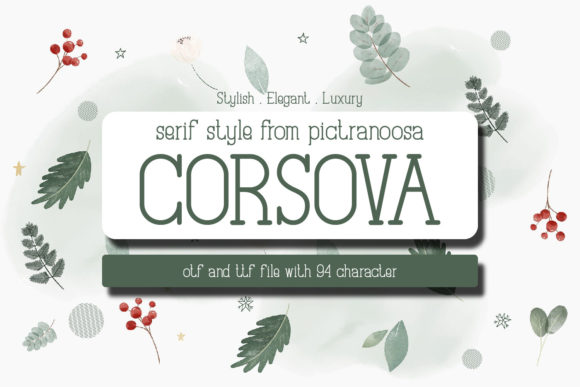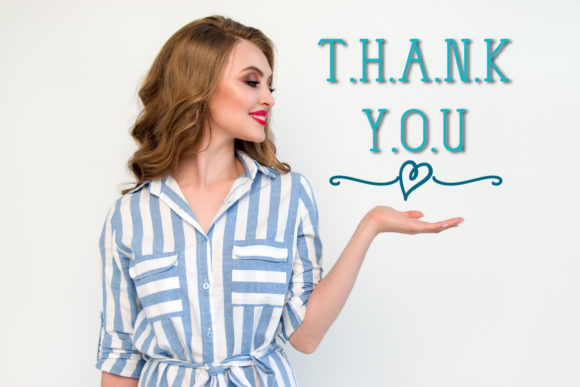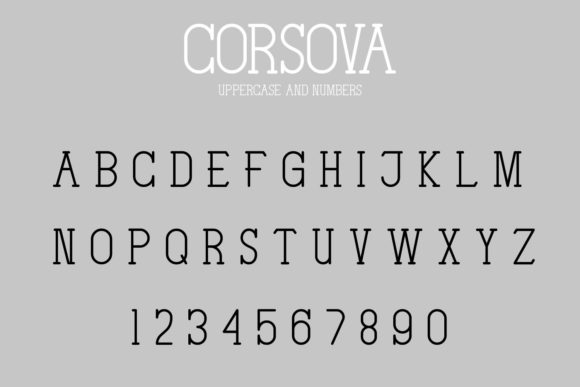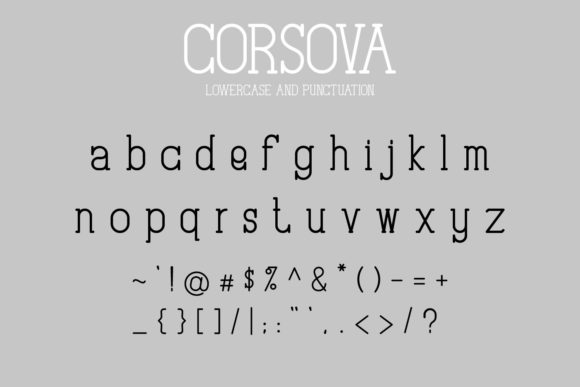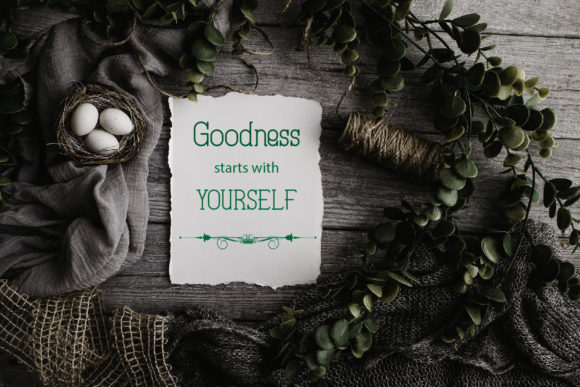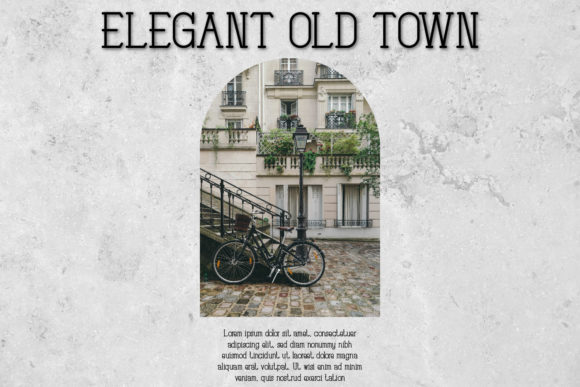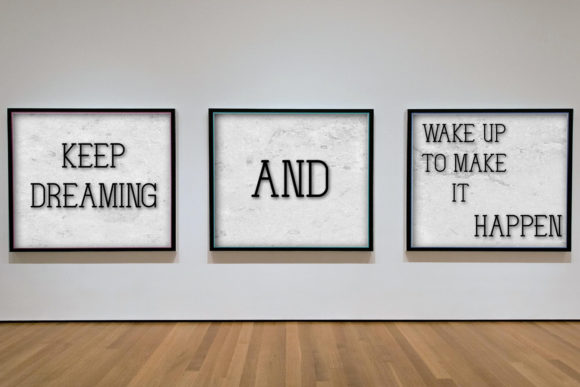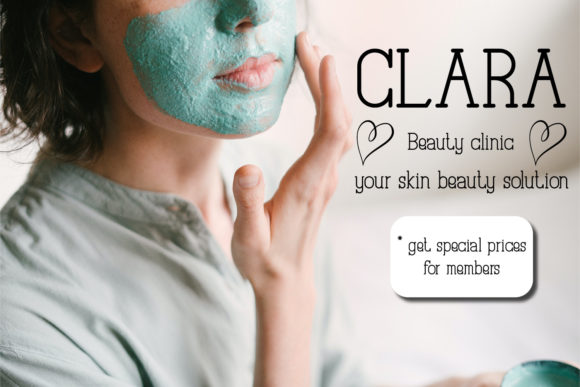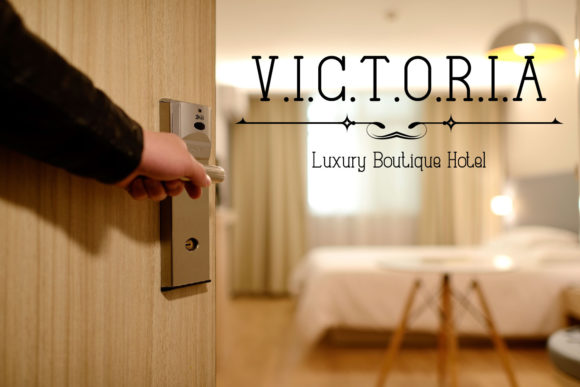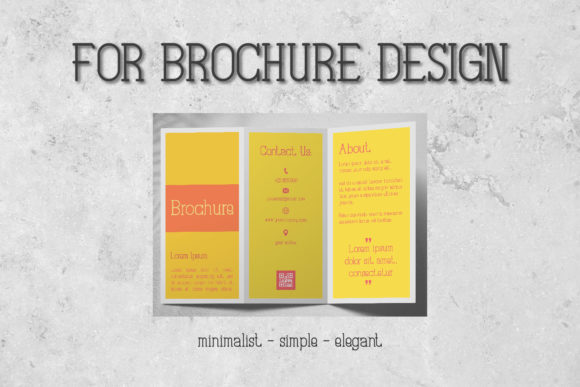
Corsova
Corsova: A Tall and Simple Slab Serif Font
Corsova is a tall, thin, and simple lettered slab serif font. Its neat style makes it suitable for a wide variety of designs, offering the potential to become your favorite go-to font for any occasion.
Key Features of Corsova
• Tall and Thin Design: Provides a sleek and elegant look suitable for various applications.
• Slab Serif Structure: Features distinctive serifs that add character and style.
• Versatile Application: Ideal for projects ranging from logos to digital media.
• Neat Style: Designed to enhance the visual appeal of any creation.
Ideal Uses for Corsova
Corsova’s unique characteristics make it particularly well-suited for:
When incorporating Corsova into your designs, consider these tips:
• Use for headlines or short blocks of text to showcase its clean style.
• Utilize its versatility across various creative projects to enhance visual appeal.
Corsova is an excellent choice for designers looking to add a tall and simple slab serif font to their typographic toolkit. Its ability to enhance various design projects makes it stand out in the world of typography. Whether you’re working on logos, creating layouts for magazines, or developing content that requires a touch of simplicity, Corsova offers the perfect blend of style and functionality.
Furthermore, Corsova’s unique design allows it to shine in various contexts. From vintage-inspired designs with a modern twist to more contemporary layouts that need a touch of uniqueness, this font can elevate your projects. Its striking yet functional style works particularly well in designs that require a thoughtful and engaging mood.
In conclusion, Corsova is a font that truly captures the essence of creativity and impact in typography. Its ability to work well in both minimalist projects and more elaborate layouts showcases its flexibility. For those looking to add a touch of unique charm to their work, Corsova can even enhance themed creations with its distinctive style. It’s the perfect choice for designers seeking to make a strong, stylish impact across a wide range of creative projects.